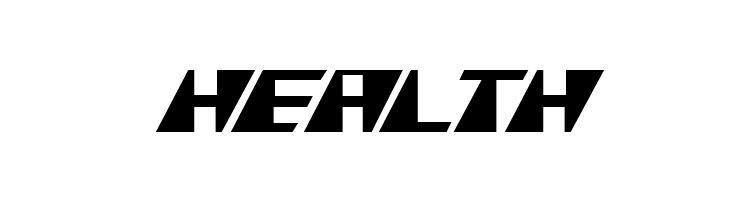
( Fonts by Des Gomez )
A playful, handwritten font with bold strokes and a whimsical style.
( Fonts by Andrew McCluskey - nalgames.com )
A bold, 3D font with a striped pattern and shadow effect, creating a dynamic and playful look.
( Fonts by Arkandis Digital Foundry )
A bold, keyboard-inspired font with three-dimensional, beveled characters.
( imagex - www.imagex-fonts.com )
A bold, textured font with a hand-drawn, vintage style.
A clean and modern font designed for the Coptic script, emphasizing readability and clarity.
A bold, angular font with a dynamic slant and geometric design.
A playful, handwritten font with bold, cursive-like strokes and rounded edges.
A modern, geometric font with rounded edges and consistent line thickness.